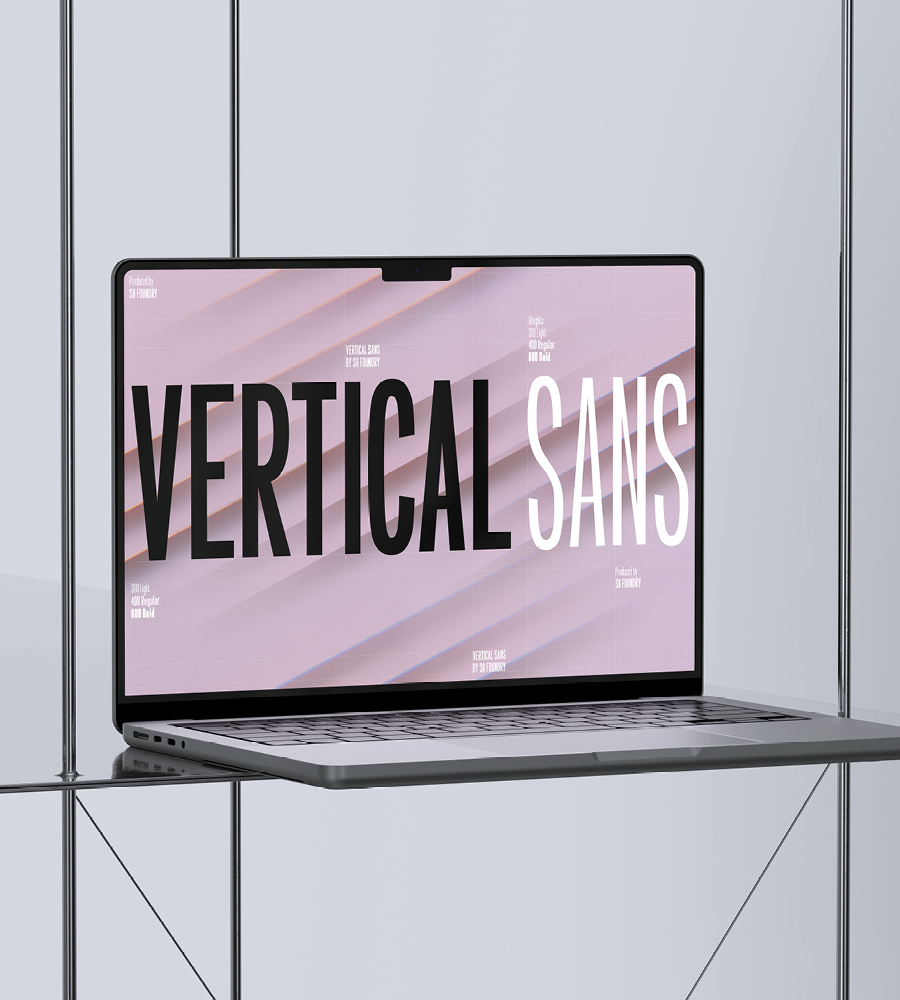
Vertical Sans is an extremely condensed sans serif, set in 3 weights offering a balanced, stylish font perfect for branding and communications projects.